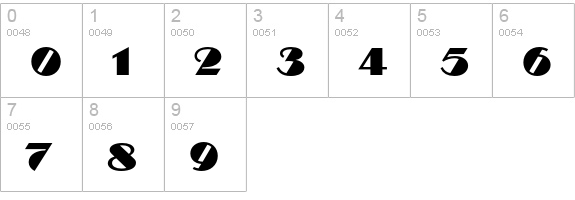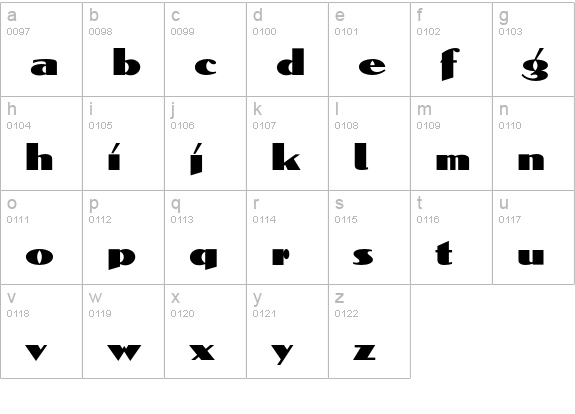
Dolmen Plain Font Details
Dolmen Plain font is a versatile and elegant typeface that exudes a timeless charm. With its clean lines and classic design, this font is perfect for a wide range of projects, from branding to editorial design. The simplicity of Dolmen Plain makes it easy to read and adds a touch of sophistication to any text. The best part? Dolmen Plain font is available for free download at FontsMarket.com. This means you can enhance your designs with this beautiful font without any cost. Don't miss out on the opportunity to elevate your projects with the stylish and modern Dolmen Plain font. Download it today and start creating stunning designs with ease.